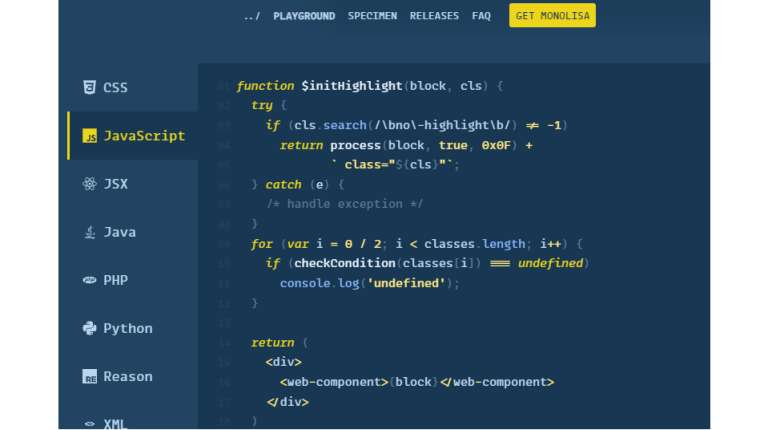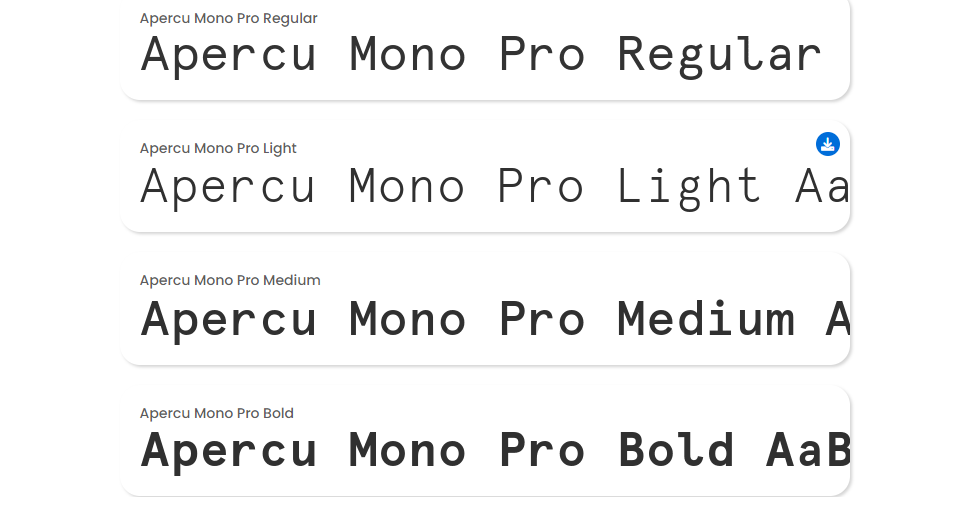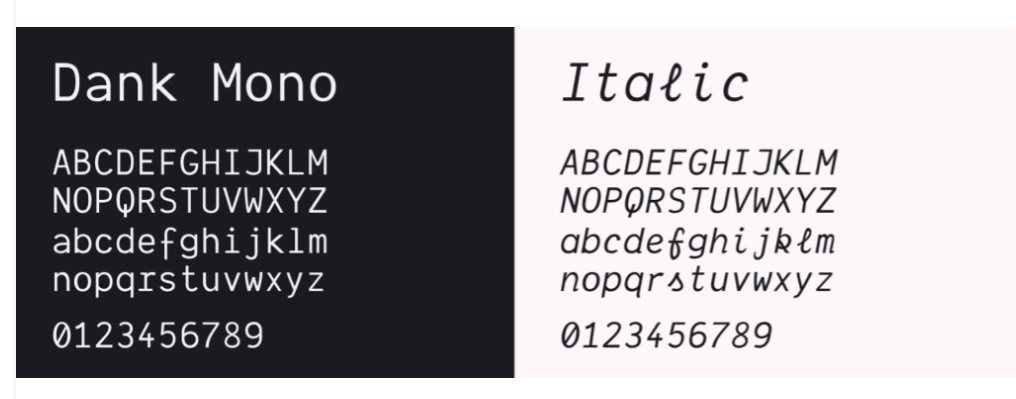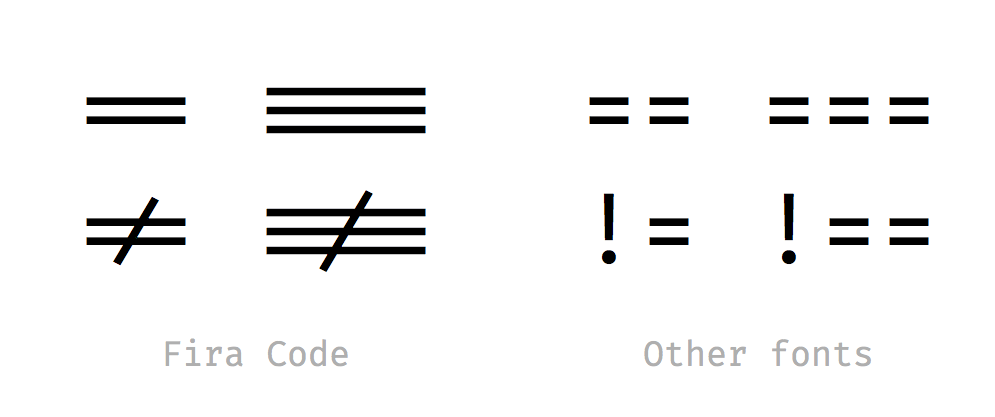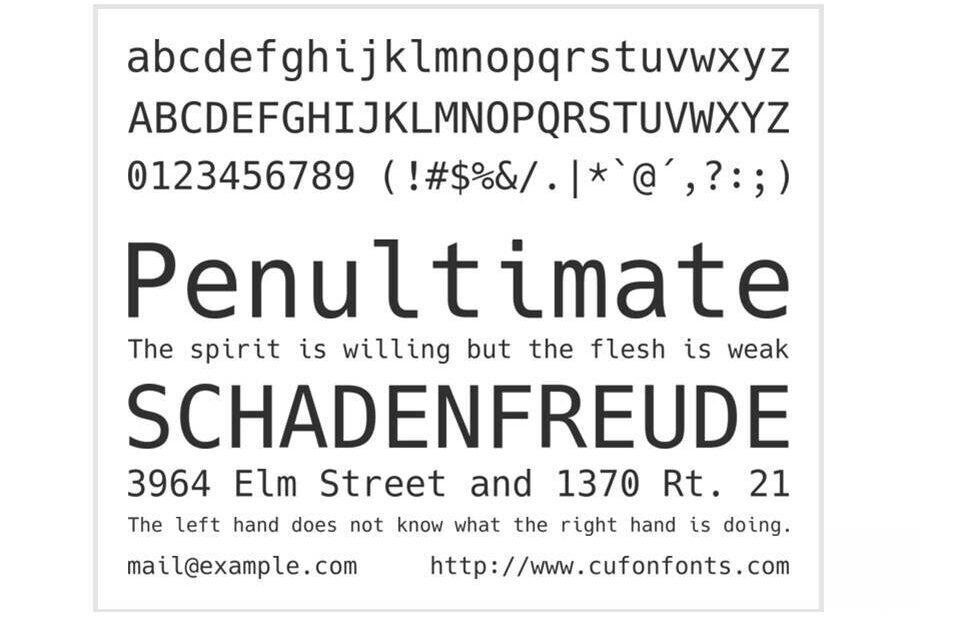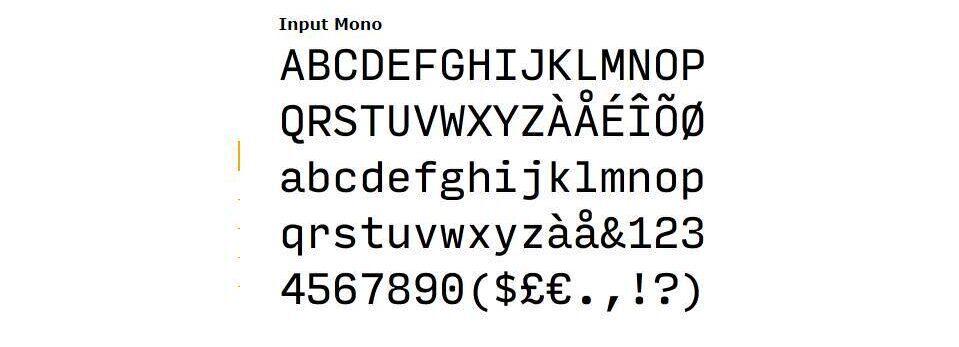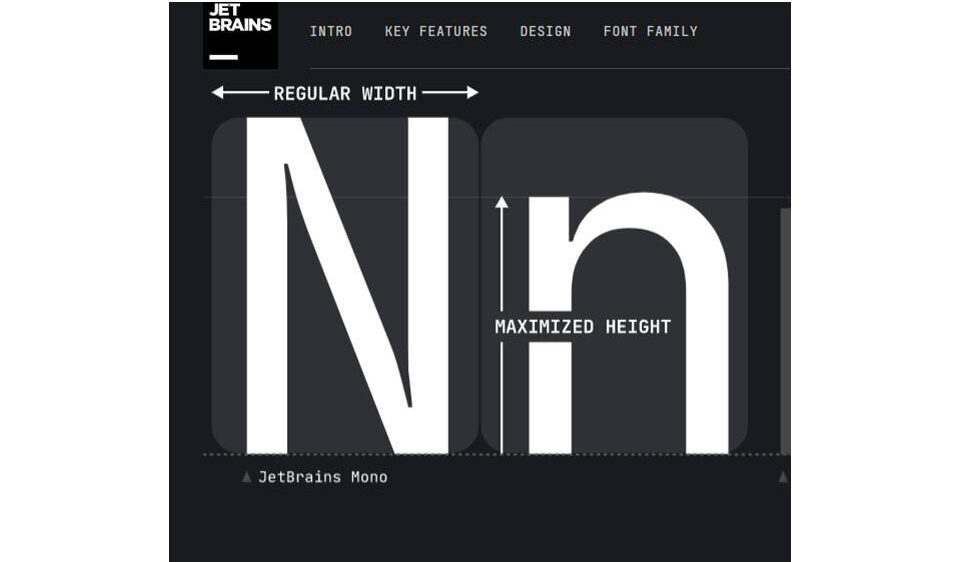
Best Programming Fonts for Coding
Let's talk about fonts! You're probably wondering why fonts are key amongst all the things required to write code. Why should you even bother about the font used?
In this article, I'll outline why fonts are necessary and share some programming fonts you should consider using.
Developers spend considerable time writing code, and choosing a legible font designed to reduce eye strain when coding is of utmost importance. Developer tools and IDEs have default fonts; however, they don't come with the best fonts, and some people don't consider changing their fonts when writing code. It's the least on their minds, but the best programming font can decrease exhaustion, especially since you'll spend a long time looking and working with it.
Most developers prefer using monospaced fonts, fonts that are evenly spaced where letters and characters occupy the same amount of horizontal space. However, they also have non-monospaced versions If you prefer to work with that.
But, what makes a good font for programming when millions of fonts are available for you to choose from?
What to Consider when choosing a Programming Font?
• Readability, Legibility, and Ease
• Indentation and Vertical alignment
• Ligatures or additional white space for regular symbols used in popular programming languages
• Source Code Support
8 Best Programming Fonts for Coding
1. Monalisa Font
Fonts are underrated, Most developers don't mind using the default fonts in their editors, but the wrong font can negatively affect productivity and lead to bugs; surprising, right! The Monalisa font was designed to improve developers' productivity and reduce fatigue. Monalisa is designed to increase legibility and make it visually pleasant when your code is being stared at for a long time. It is spacious, stylish, and easy to read.
2. Fira Code Font
Fira Code is an open-source monospaced font containing ligatures for standard programming multi-character combinations. It's a free developer code that works with various editor support like Visual studio code and Eclipse. It uses custom characters to replace existing characters used in text or code.
As a programmer, you use the equals sign to represent equals (==) to a string or (===) equals to a number. Fira code uses ligatures to combine them into something more visual. The image below shows how Fira code represents these signs, allowing you to define your code more efficiently and faster. Note that these changes do not affect your code in any negative way. The underlying characters aren't changed in any way; the font is designed this way to make the characters easier to read.
JavaScript and HTML operators and characters are converted into more accessible and straightforward forms you can explore and apply. Its features also include context-aware punctuations, making reading characters in our code more accessible.
Fira Code is the first programming font to offer dedicated glyphs to render progress bars and is also an excellent choice for mathematical writing.
3. Apercu Mono
Apercu Mono is a monospaced typeface full of unique and eccentric characteristics. The mono family consists of four variations: Mono Light, Mono Regular, Mono Medium, and Mono Bold. A pro version in the Apercu mono collection adds old-style number glyphs, 100 symbols, and a large variety of ligatures.
4. Input Mono
Input Mono is a system of fonts designed specifically for coding by David Jonathan Ross. It comes in both proportional and monospaced variants. However, since it's been designed with coding in mind, the proportional spacing is tailored so that you may consider it over the monospaced version.
5. JetBrains Mono
JetBrains Mono is a type-space font specific to developers, and certain features were applied to the font to make it easier to read. An example is the letter font height which was increased for a better reading experience.
Code-specific ligatures also work in 145 languages with seven font weights.
JetBrains's typeface forms are simple and free from unnecessary details, making it faster for the eyes to perceive them and reducing the effort the brain uses to process the font.
6. Monoid
Monoid is an open-source coding font that is customizable. It's legible, that is, it is easy to read, and you can tell the difference in each letter. It's also a compact font allowing more code on your screen. It retains its quality and sharpness even on low-resolution displays. Monoisome, a Monoid and Font awesome collaboration, will enable you to see Icons directly in your code.
7. Dank Mono
This font is very slick in design. It has a modern look, with ligatures, italic-variant, and a bold look.
Dank mono covers an extensive list of mathematical symbols, basic Greek glyphs, and terminal glyphs, e.g., Unicode block symbols, circles, arrows, and Powerline symbols. It also includes Ligatures for 26 different code character combinations.